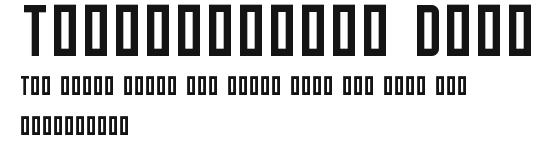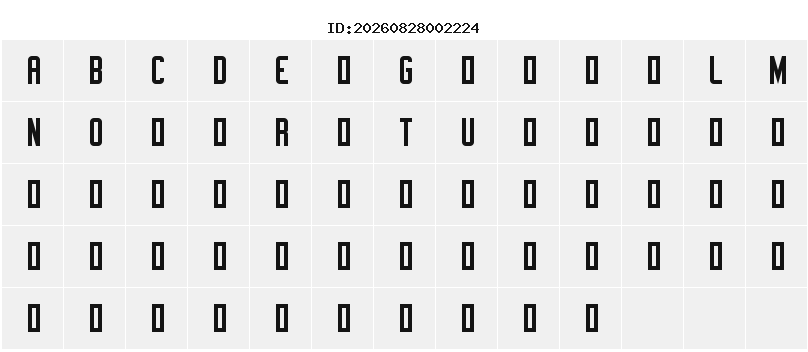
• Font Name: Turbonacular Demo
• Full Font Name: Turbonacular Regular Demo
• Character Count: 14
• Designer: Out Of Step Font Company
About Turbonacular Demo.ttf
Turbonacular Demo.ttf is a modern, elegant sans-serif font designed for ultimate readability and visual harmony. Perfect for branding, headlines, web design, and print materials.